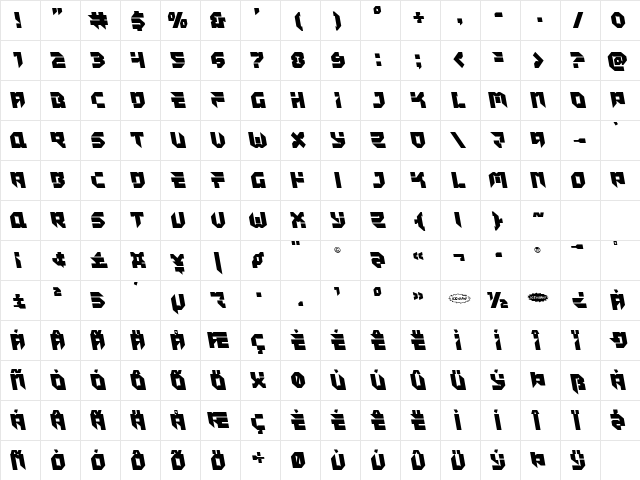
Tokyo Drifter Leftalic is a composed and adaptable typeface that performs quietly and consistently across a wide range of design contexts. The slanted form adds forward momentum and visual energy.